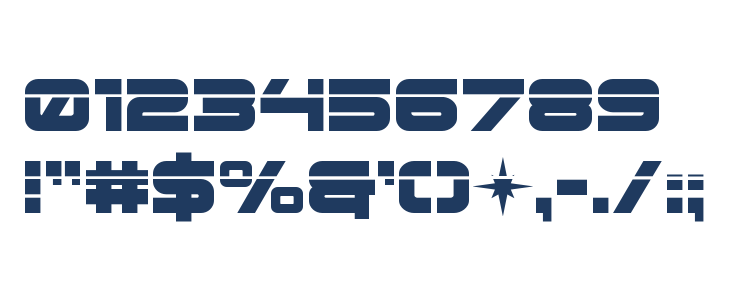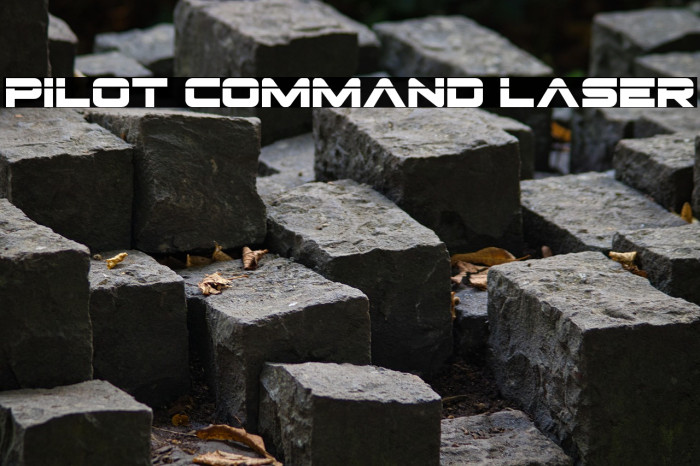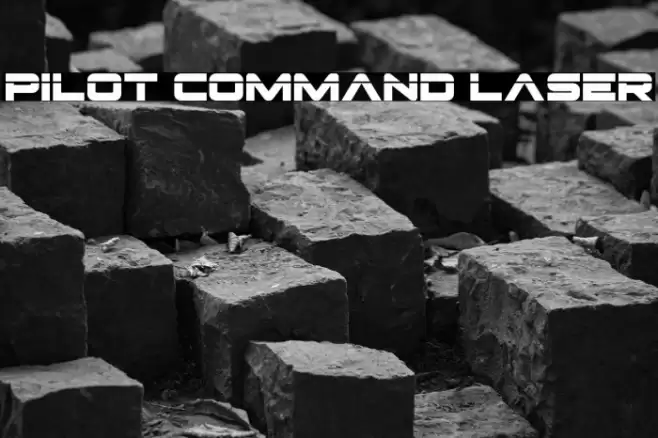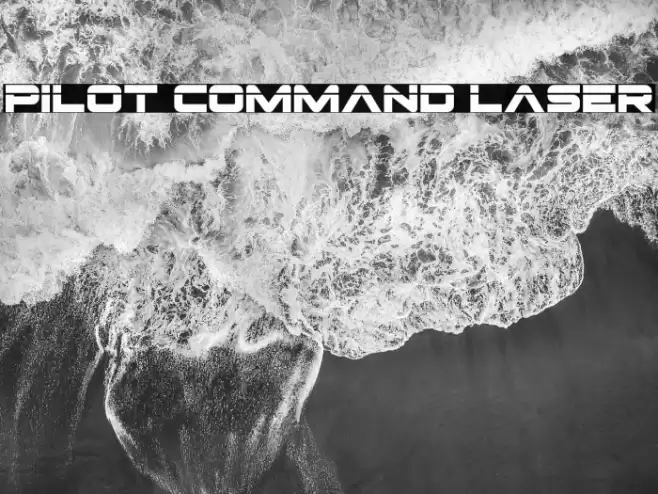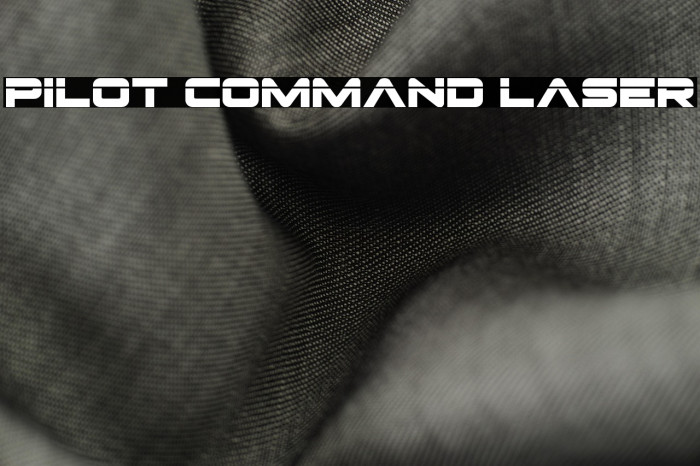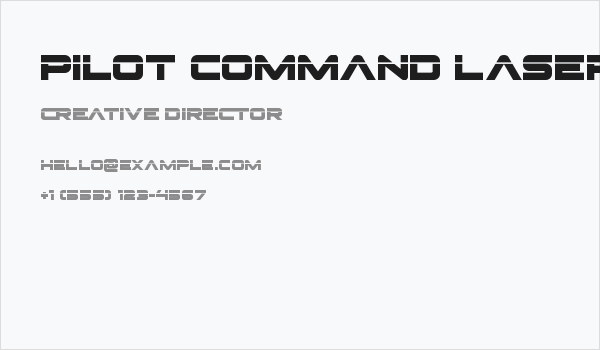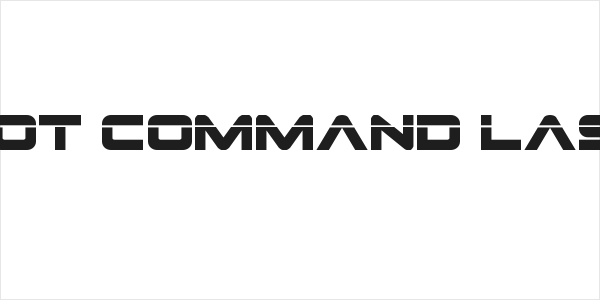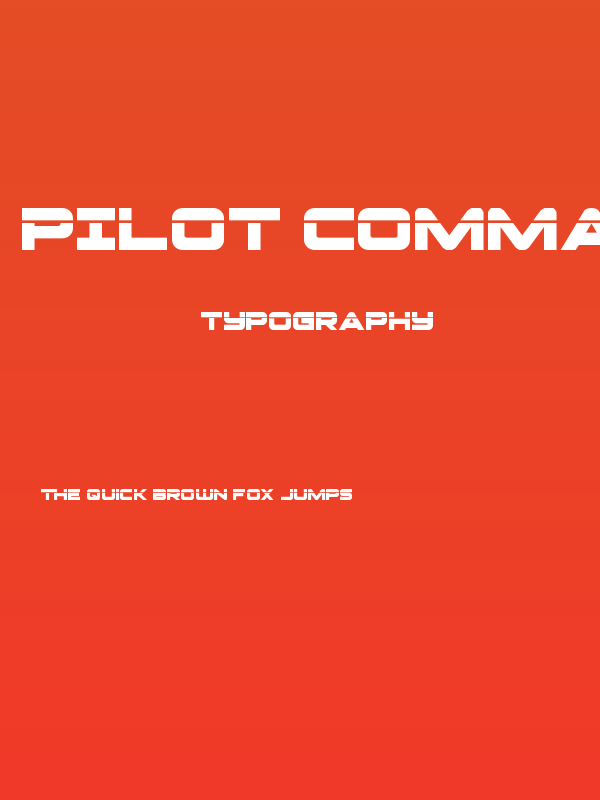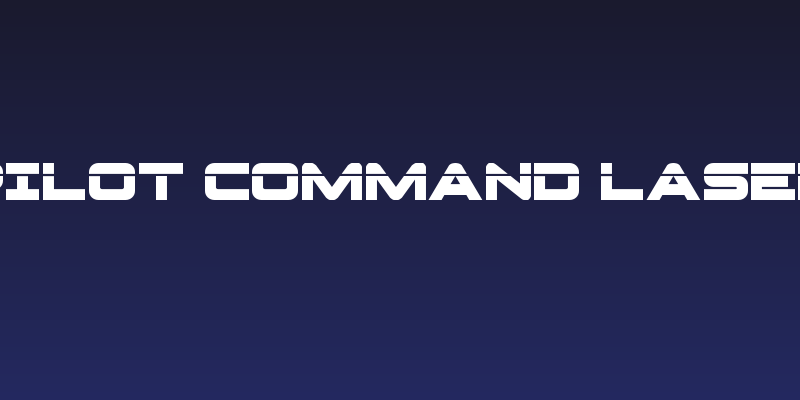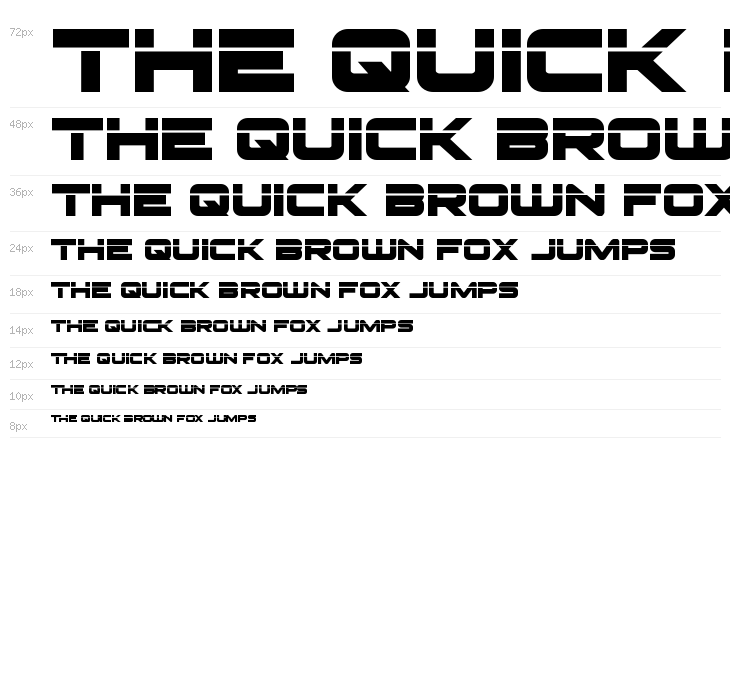
Pilot Command Laser Font
Pilot Command Laser Description
This font features a bold, futuristic design with sharp, angular edges and a distinct geometric style. The characters are constructed with a combination of solid and cut-out sections, creating a dynamic and high-tech appearance. The uppercase letters are particularly striking, with a uniform height and width that gives them a strong, cohesive look. The numerals and special characters maintain this aesthetic, ensuring consistency across all glyphs. The font's design is reminiscent of digital displays or sci-fi themes, making it ideal for projects that require a modern and cutting-edge feel.
| Proposed Projects | Ideal for sci-fi themed designs, tech-related branding, video game interfaces, and futuristic posters. |